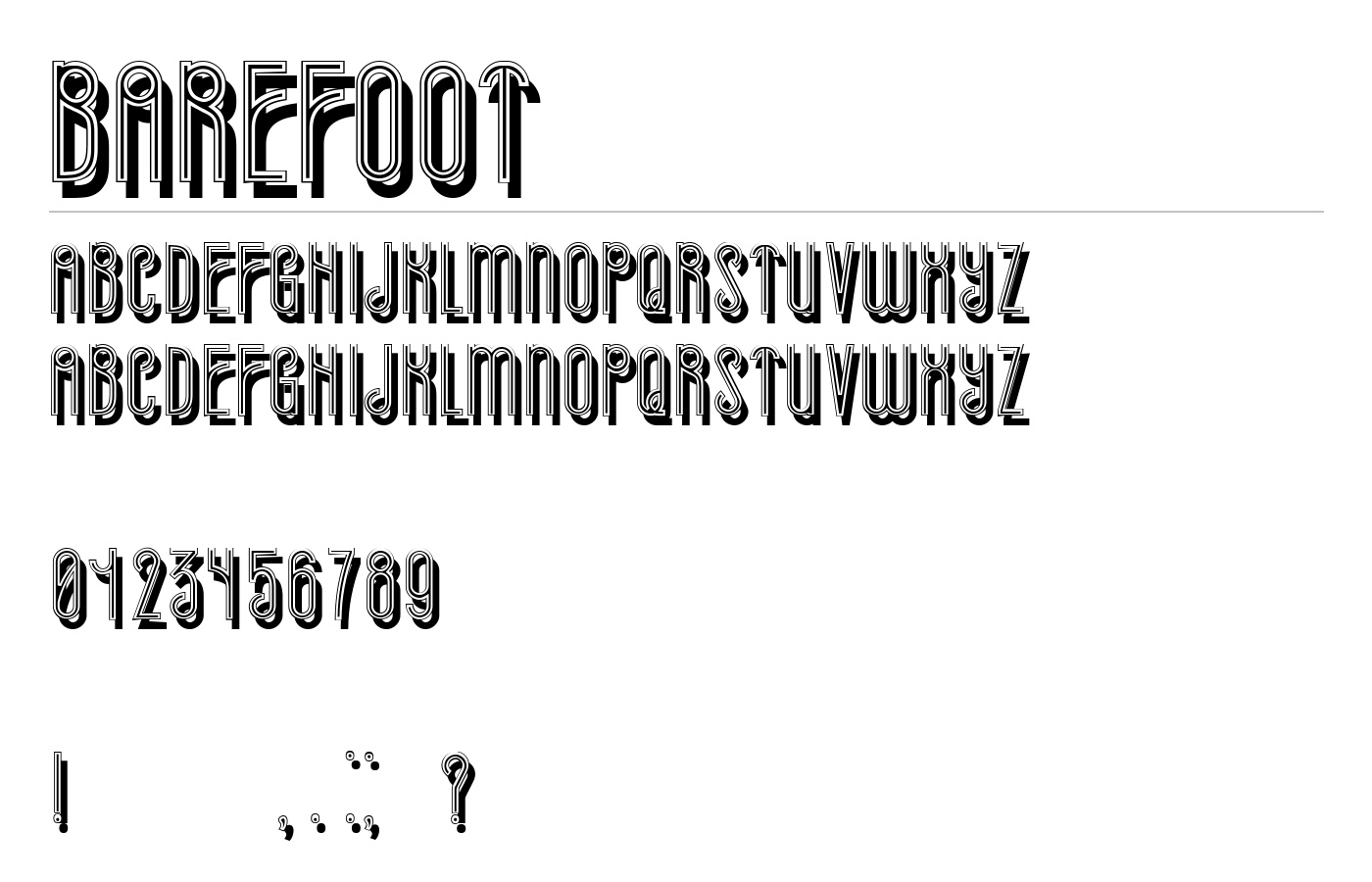
Barefoot Font is a decorative sans serif typeface featuring tall, condensed letterforms with a distinct layered shadow effect that creates a dynamic, retro vibe. Its high contrast between bold vertical strokes and fine inner lines, along with unique geometric shapes and all-uppercase style, makes it perfect for eye-catching headlines, logos, and playful branding that demands attention. This font works best in design projects seeking a vintage yet modern flair with a bold, artistic personality.
Barefoot Font
About Barefoot Font